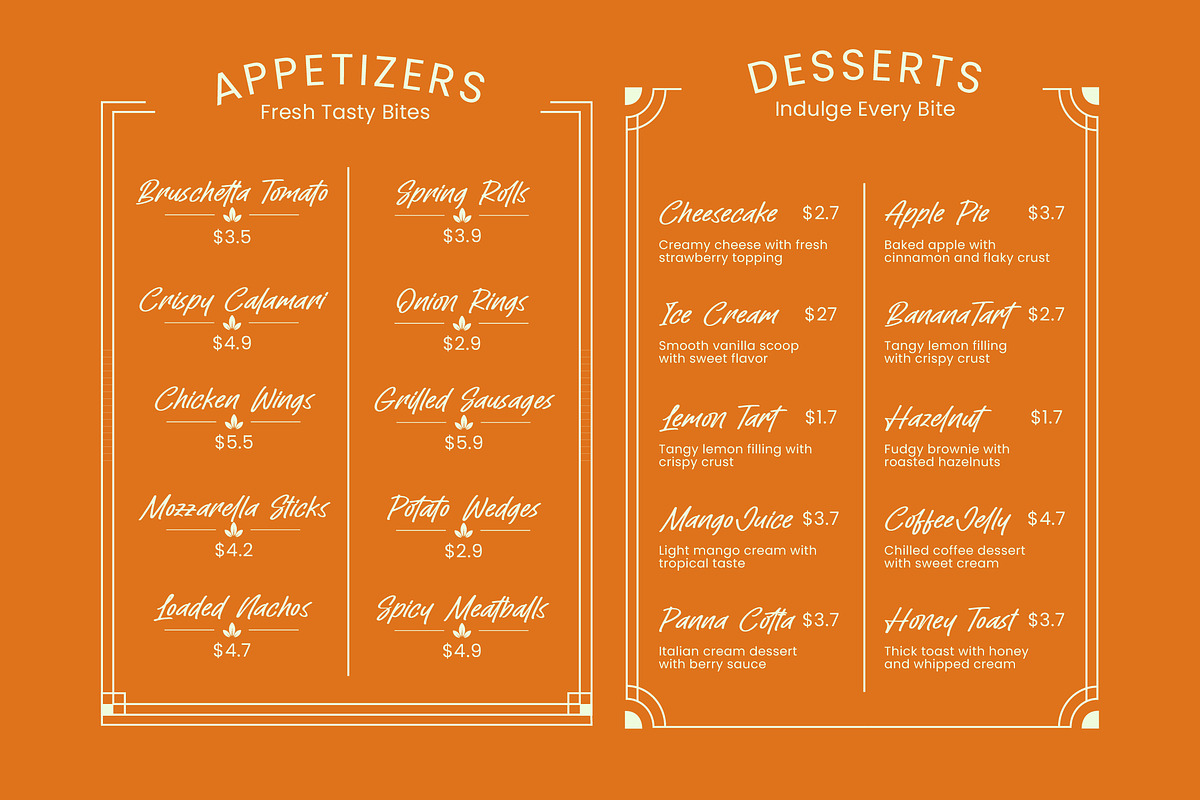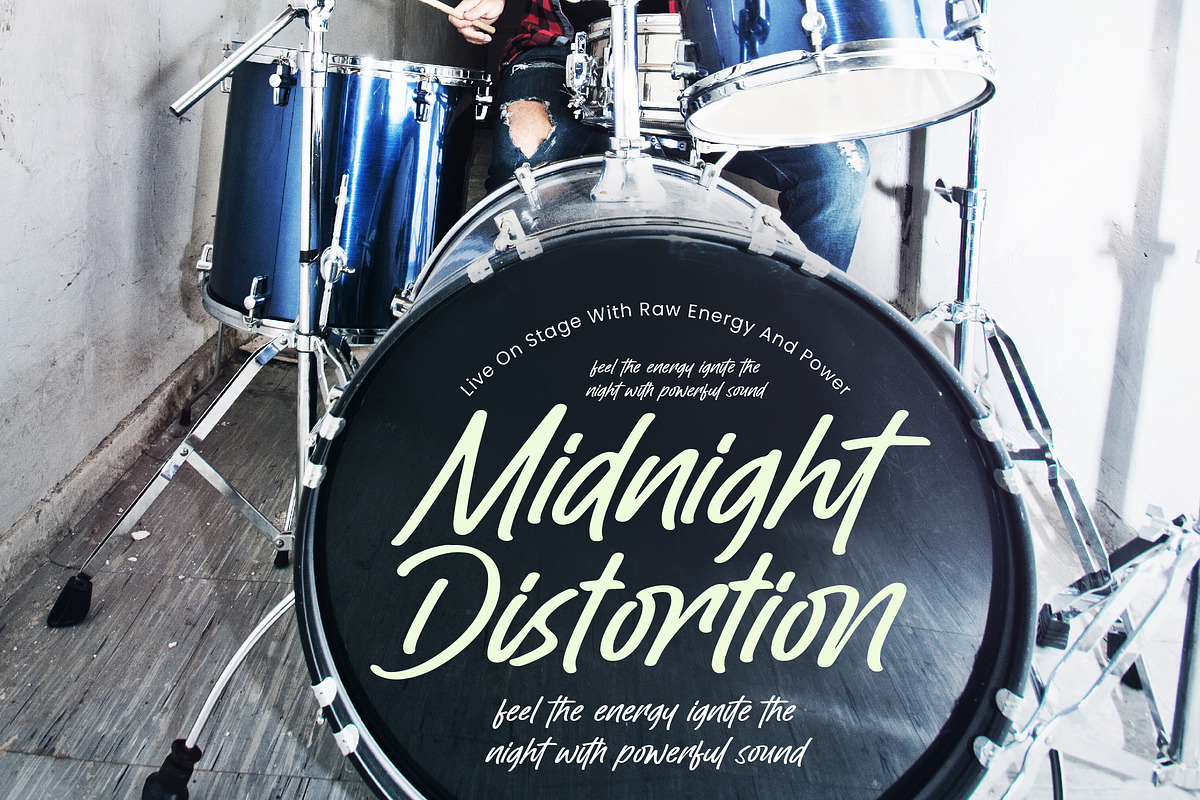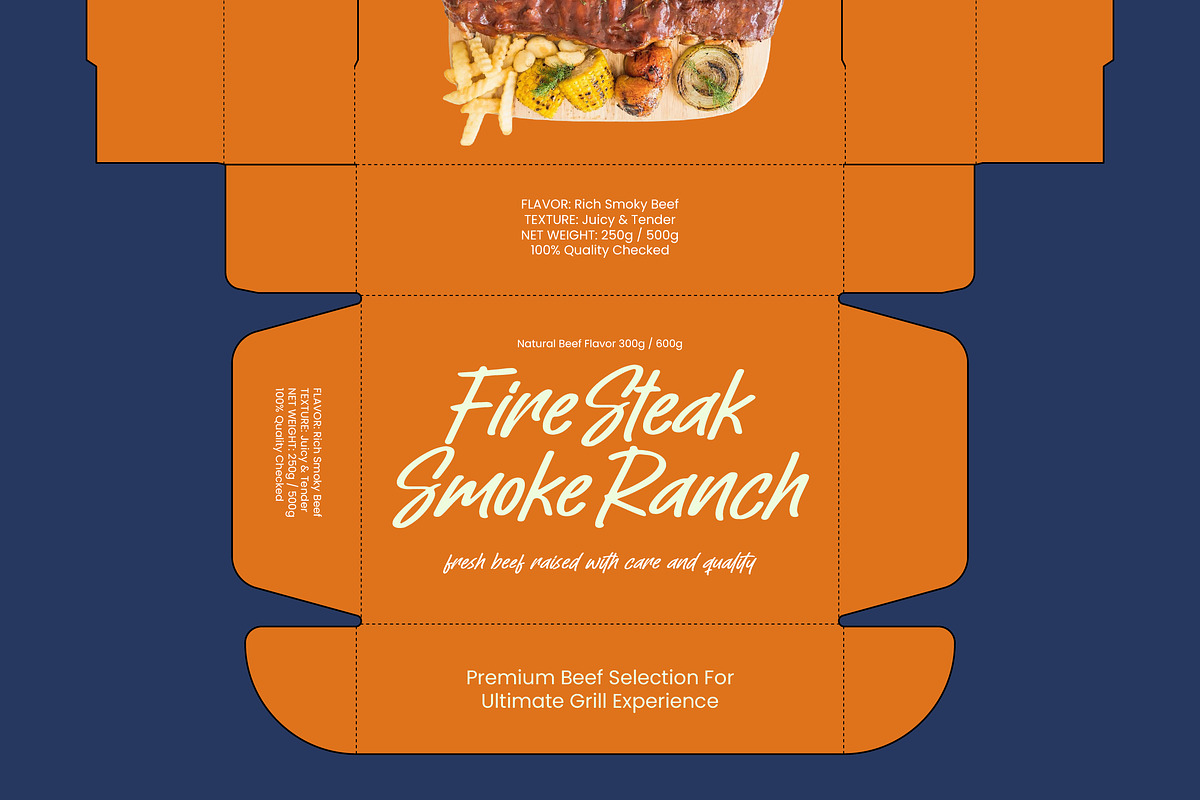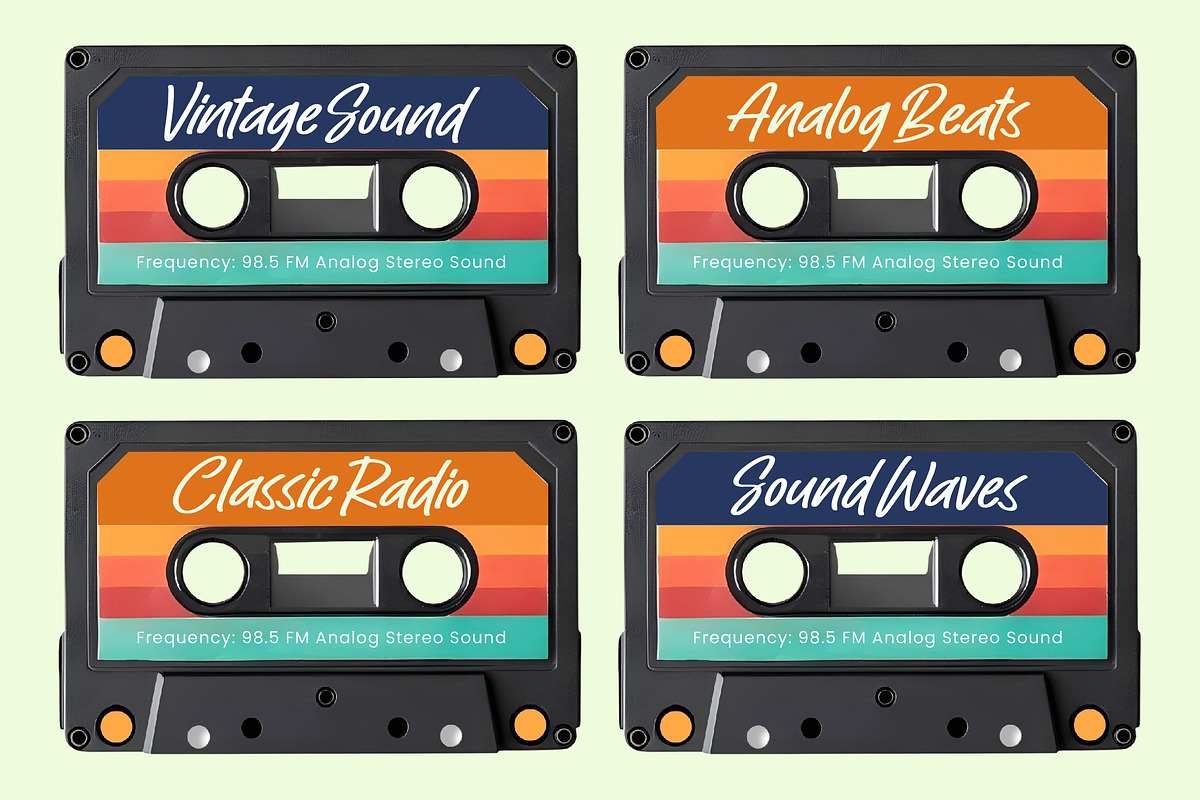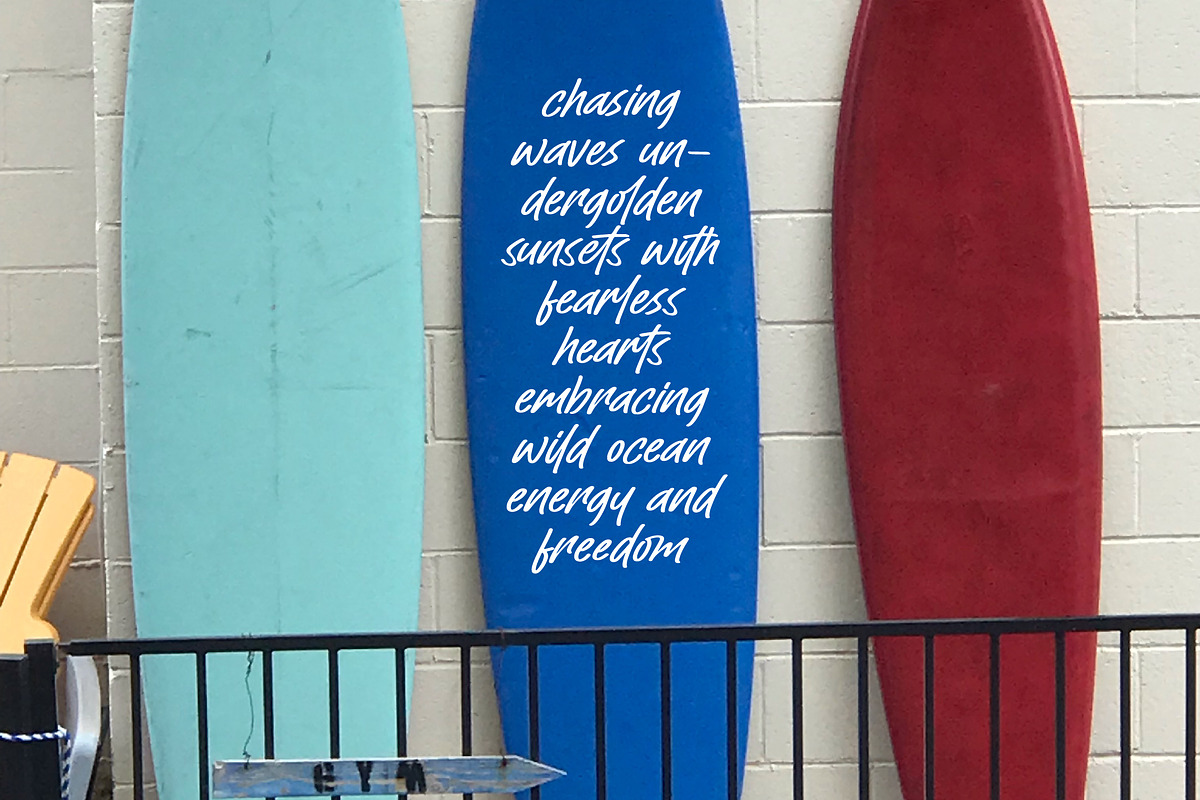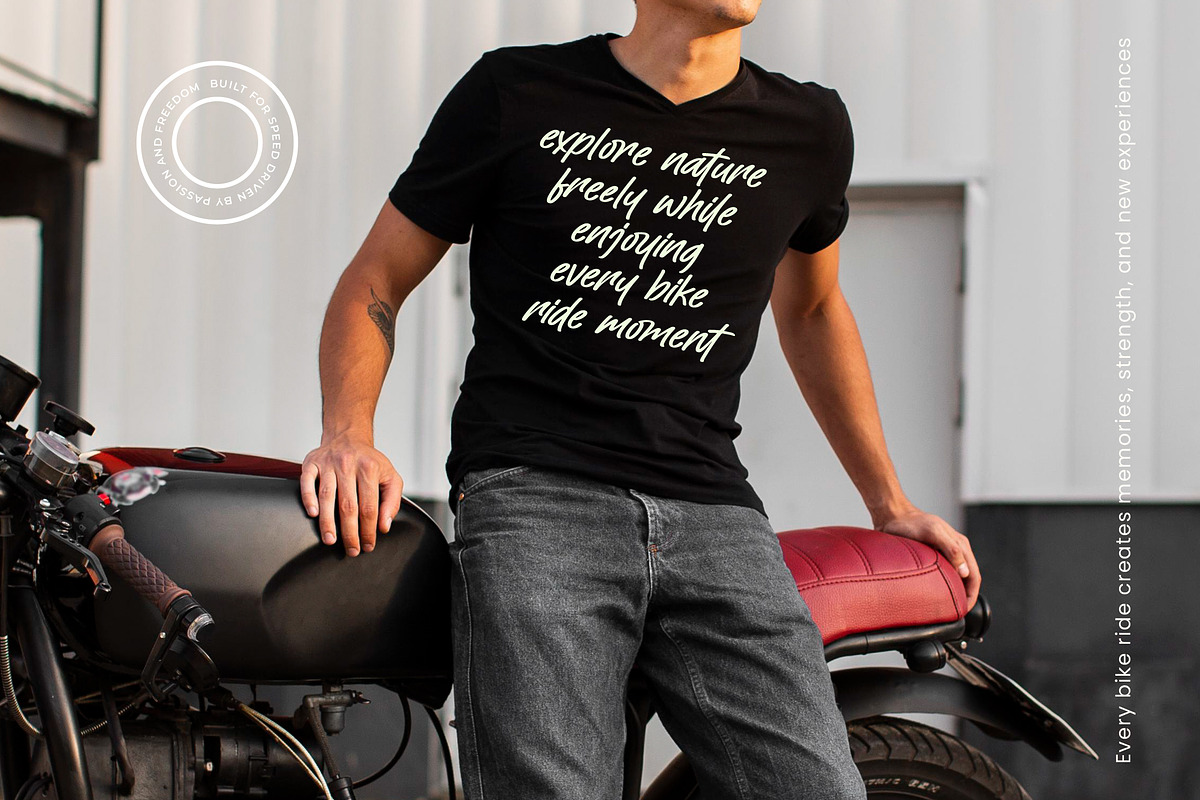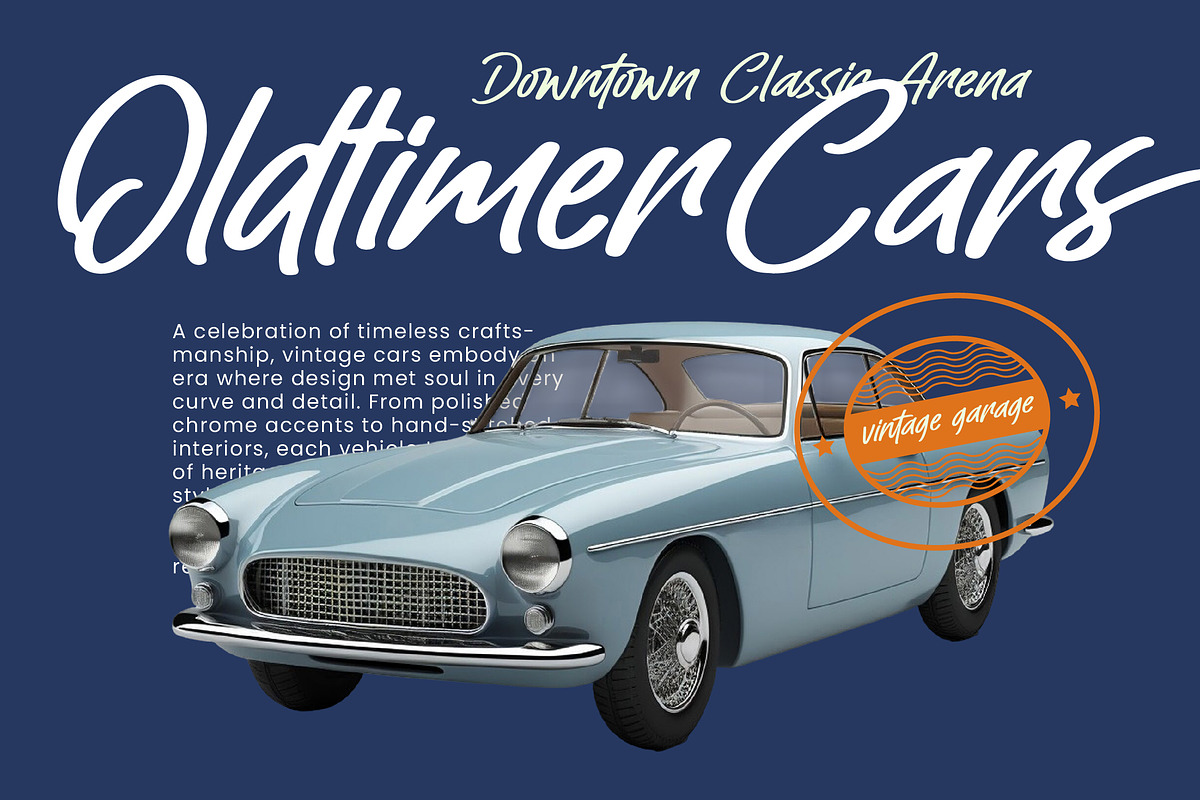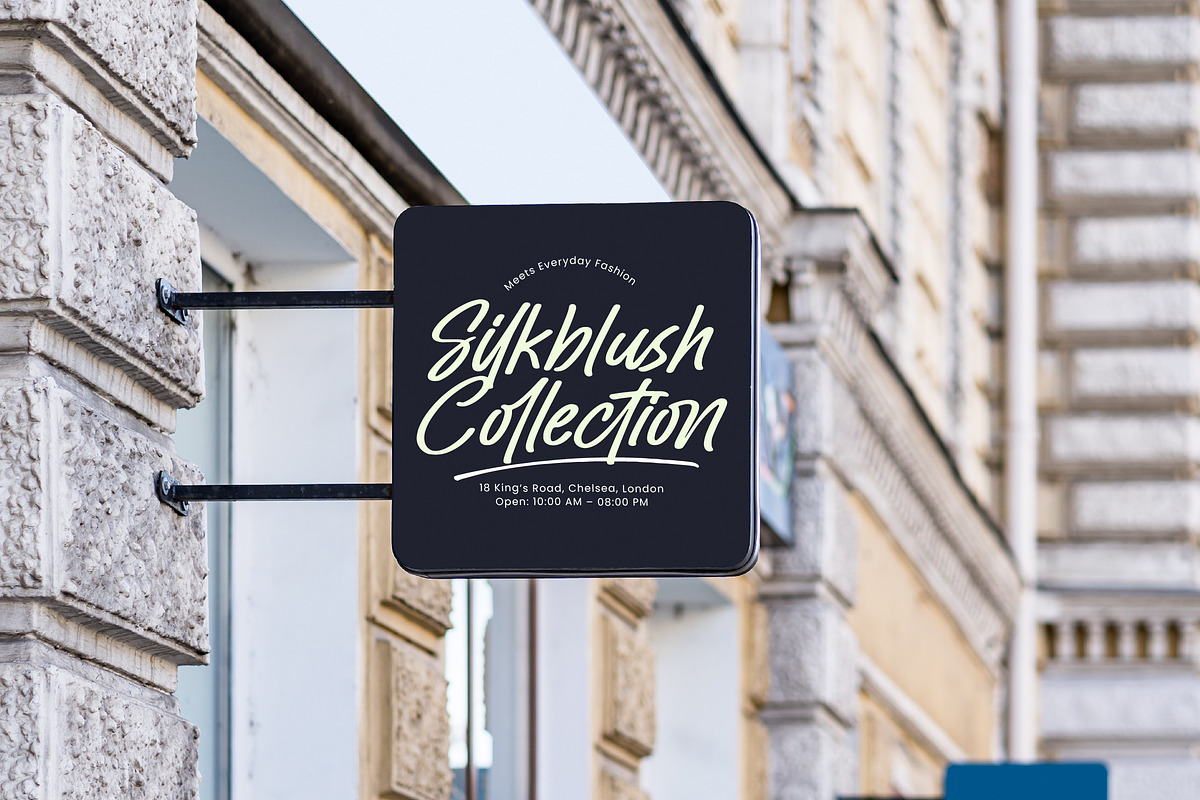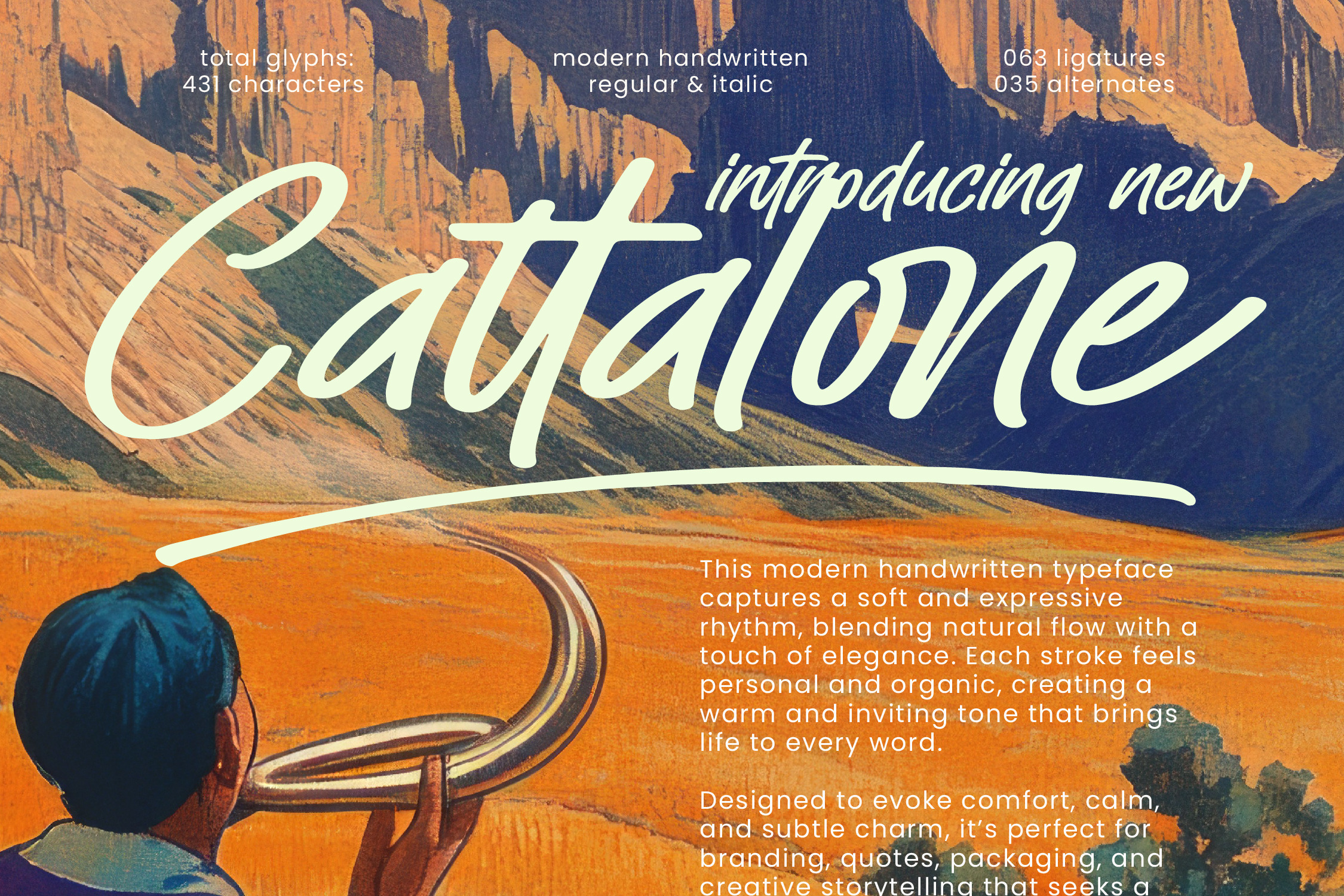
Cattalone Modern Handwritten Font
Cattalone - Modern Handwritten Font , Elevate your creative vision with the sophisticated charm of Cattalone - Modern Handwritten Font, a typeface that masterfully captures an expressive rhythm and organic flow. This versatile script is meticulously crafted to blend a personal, handcrafted feel with a polished contemporary aesthetic, making it the ideal choice for projects requiring a warm and inviting presence. Its fluid strokes and natural movement ensure that every character feels authentic, adding a layer of human-centric depth to your visual storytelling.
Experience the power of professional typography through a robust library of decorative ligatures and unique alternates. Cattalone - Modern Handwritten Font offers over 431 glyphs, providing designers with the creative flexibility needed to produce truly bespoke typography. Whether you are working with the regular or italic weights, the font's high-contrast lines and smooth transitions deliver a high-end finish that stands out in any digital or print environment.
Bridge the gap between local charm and international appeal with a typeface built for the modern global landscape. With its extensive multilingual support, Cattalone - Modern Handwritten Font adapts seamlessly across global markets, making it incredibly versatile for international projects. This global readiness ensures your message remains consistent and impactful, regardless of the linguistic requirements of your branding strategy.
Define your brand's excellence with a typeface designed for luxury branding, high-end packaging, and editorial design. Cattalone - Modern Handwritten Font is perfect for wedding stationery, lifestyle logos, and social media graphics that demand an air of effortless sophistication. By choosing this premium handwritten font, you are investing in a timeless asset that transforms standard text into a compelling visual narrative.